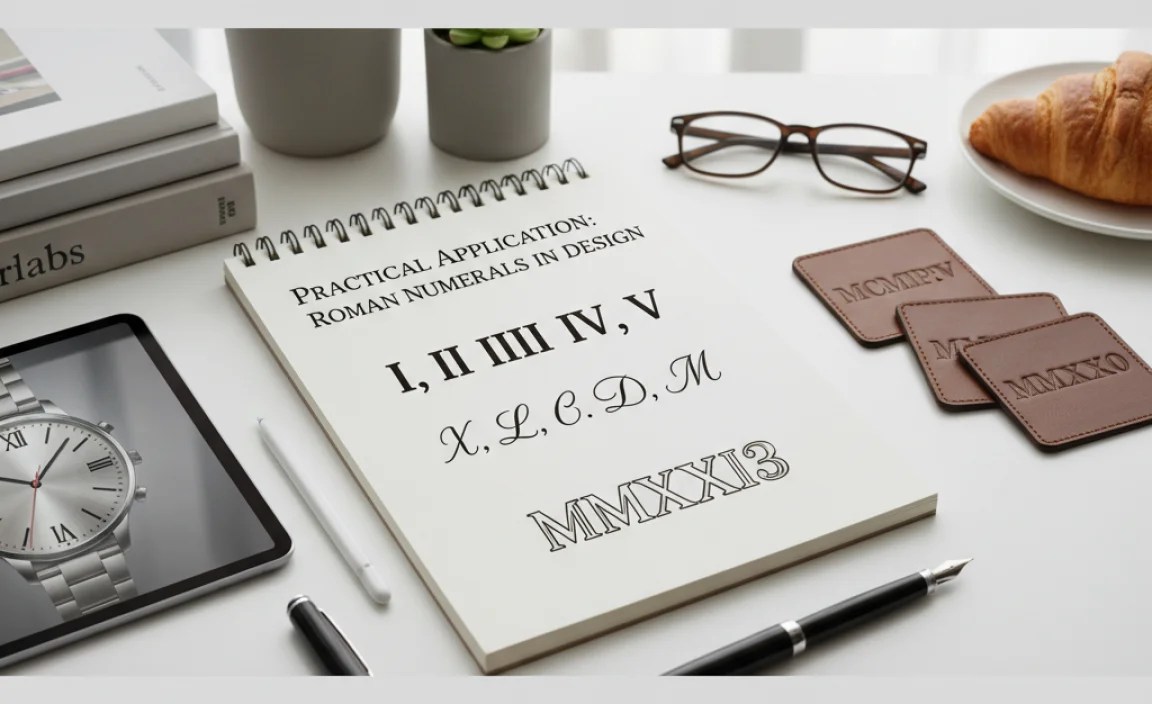
Roman numeral font styles can be mastered effortlessly by understanding their historical context, choosing the right stylistic variations, and applying them strategically in design. This guide breaks down font choices for historical accuracy and modern appeal, making Roman numeral typography accessible for any project.
Ever stared at a clock face, a building’s cornerstone, or a vintage-inspired logo and wondered how to get that timeless Roman numeral look just right? It’s a common design puzzle. Sometimes, finding the perfect font to convey that classic, authoritative feel seems surprisingly tricky. Many fonts can look like Roman numerals, but capturing the authentic style or the sleek, modern interpretation requires a little know-how. Don’t worry, we’re going to demystify Roman numeral font styles, making it totally effortless to choose and use them for your next design. Get ready to elevate your projects with a touch of enduring elegance!
Understanding the Roots of Roman Numerals in Typography
Before we dive into fonts, let’s take a quick trip back in time. Roman numerals, as we know them – I, V, X, L, C, D, M – originated in ancient Rome and were used for everything from counting to monumental inscriptions. This historical association is key to their enduring appeal in design. They represent stability, tradition, and a sense of permanence. Think of grand public clocks, important declarations, or the sequels to epic films – Roman numerals lend an air of significance and historical weight.
In typography, this translates to a few distinct stylistic characteristics that designers look for. We’re not just talking about the letters themselves, but the way they are rendered. This often includes:
- Serifs: Many classic Roman numeral fonts feature serifs – those small decorative strokes at the end of letterforms. These serifs contribute to a formal, traditional, and readable appearance, especially for longer texts.
- Stroke Contrast: The variation in thickness between the thick and thin strokes of the letters. This contrast can range from subtle to dramatic, influencing the font’s overall mood and readability.
- Capitalization: Roman numerals are almost exclusively presented in uppercase. This uniformity is part of their inherent structure and visual consistency.
- Geometric Simplicity: The underlying forms are often based on simple geometric shapes, making them inherently balanced and visually pleasing.
Understanding these foundational elements helps us appreciate why certain fonts evoke the “Roman numeral” feel, even when they aren’t strictly designed for numerical representation.
Identifying True Roman Numeral Fonts vs. Roman-Style Fonts
This is where things can get a bit nuanced, but it’s crucial for authentic design. Not every font that uses I, V, and X is a “Roman numeral font” in the purest sense. We can categorise them:
True Roman Numeral Fonts
These fonts are specifically designed to represent Roman numerals or are historically derived from them. They usually feature:
- Limited Character Set: Primarily focused on the numeral characters (I, V, X, L, C, D, M) and perhaps a few essential punctuation marks.
- Specific Proportions: Often designed with proportions optimized for clarity when used as numerals, such as on clock faces or in dates. Think about the sturdy, evenly weighted strokes.
- Consistent Weight: Typically come in one or two weights, emphasizing their functional, almost utilitarian, origin.
Examples might be found in specialized font foundries or historical typeface revivals. They are often embedded in older software or design templates. For instance, many classic clock fonts are direct descendants or careful recreations of historical numeral designs.
Roman-Style Fonts (or “Serif” Fonts)
This is a much broader category. Most fonts we commonly associate with a “classic” or “formal” look are often referred to as Roman, based on the historical Roman alphabet’s influence on Western typography. Think of fonts like:
- Garamond
- Times New Roman
- Trajan Pro (especially popular for its monumental Roman inscription feel)
- Trajan Sans (a sans-serif interpretation, but still evoking classical forms)
These fonts are designed for extensive text reading. While they use Roman letters, they aren’t exclusively about rendering numerals. However, their inherent serifs, stroke contrast, and classical proportions can make them excellent choices when you want to evoke a Roman numeral aesthetic in titles, headings, or logos.
The key difference lies in intent and application. True Roman numeral fonts are functional for numbers, while Roman-style fonts are versatile, carrying the legacy of Roman letterforms into broader typographic use.
Exploring Different Roman Numeral Font Styles for Your Project
The “Roman numeral font style” isn’t a single look. It encompasses a spectrum from ancient inscriptions to sleek modern interpretations. Choosing the right one depends entirely on the mood and purpose of your design.
1. Classic and Traditional Serifs
These fonts exude a sense of history, authority, and academic rigor. They often feature prominent, well-defined serifs and noticeable stroke contrast, reminiscent of carved stone inscriptions or early printed books.
Tips for Making Roman Numerals Effortless in Your Designs
Beyond just picking a font, here are some pro tips to make your Roman numeral usage shine:
- Maintain Consistency: If you use Roman numerals for dates on a website, ensure they follow the same style and font choice across all instances.
- Prioritize Readability: Especially for functional uses like clock faces or dates on products, clear and legible numerals are paramount. Avoid overly decorative fonts in these contexts